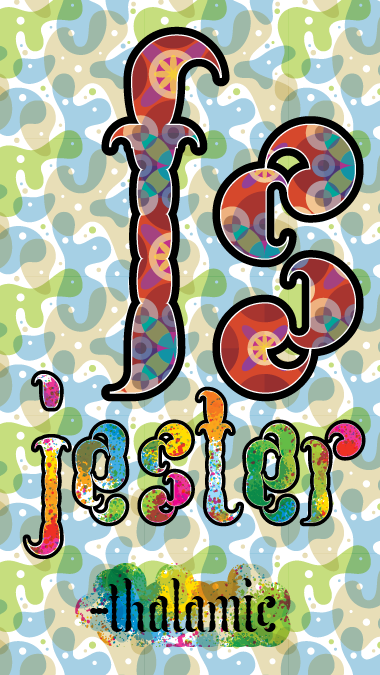
That looks fun :)
Beautiful font and sample!
Very creative and fun! Nice!
I actually have made a vector font called Jester.
Soo great.
Amazing...
Funky and creative. 10/10.
Some sample!
Great fun - and it reads well. 10/10
Absolutely brilliant!
Beautiful font! I love this kind of marvelous samples too! Thanks once again.
Boredom must be channeled into productive output somehow. Making fonts is my channel.
@thalamic My also.
Congratulations! FontStruct Staff have deemed your FontStruction worthy of special mention. “fs Jester” is now a Top Pick.
@opipik: me also xD